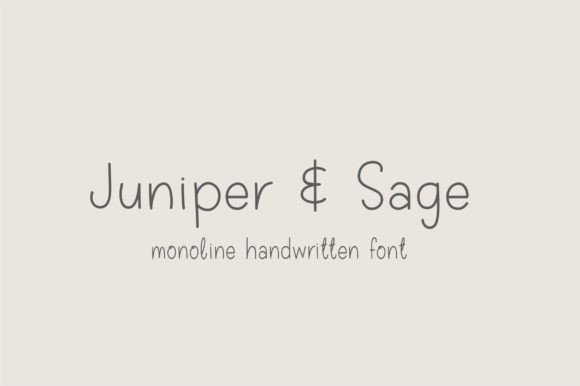
Introducing Juniper & Sage Font, the exquisite script font family that oozes elegance and finesse. Created by the talented Sunday Nomad, this font is a perfect embodiment of simplicity and modernity, catering to the needs of discerning designers and creatives worldwide.
With its slender strokes and flowing curves, Juniper & Sage dances across your screens like a gentle breeze, leaving a trail of sophistication in its wake. Its clean lines and remarkable legibility make it an exceptional choice for a wide range of creative projects, from branding and marketing to invitations and digital designs.
Whether you're a seasoned professional or just starting your creative journey, Juniper & Sage is the perfect font to elevate your designs to new heights. Its versatility knows no bounds, seamlessly adapting to a multitude of projects, from elegant logos and branding elements to captivating social media posts and eye-catching marketing materials.
Imagine your brand adorned in the exquisite lines of Juniper & Sage, exuding a timeless charm that captivates your audience. Experience the joy of creating invitations that radiate elegance, leaving a lasting impression on your guests. Unleash your creativity and produce digital designs that shimmer with sophistication, grabbing attention and igniting imaginations.
With Juniper & Sage as your creative companion, you'll discover a world of possibilities, transforming ordinary into extraordinary. Its exceptional quality and meticulous craftsmanship ensure that every design you create carries a touch of refinement and distinction.
So venture forth, embrace the allure of Juniper & Sage, and embark on a creative journey where your designs blossom into masterpieces. Let your imagination soar, knowing that this extraordinary font will amplify your vision, leaving an indelible mark on the world of design.
Don't miss out on the opportunity to transform your creative endeavors with Juniper & Sage. Its elegance, versatility, and captivating charm await your touch. Embrace the beauty of this remarkable font today and witness the magic it brings to your designs.